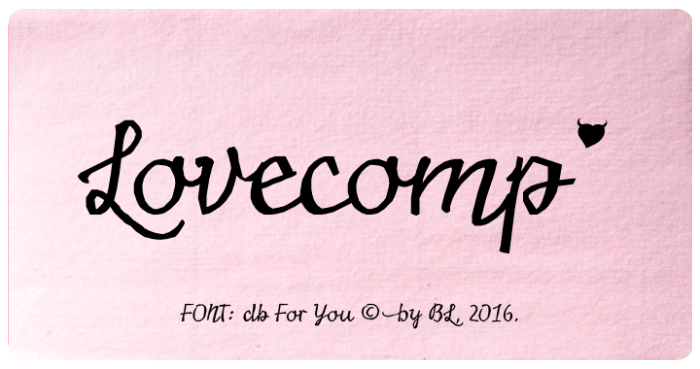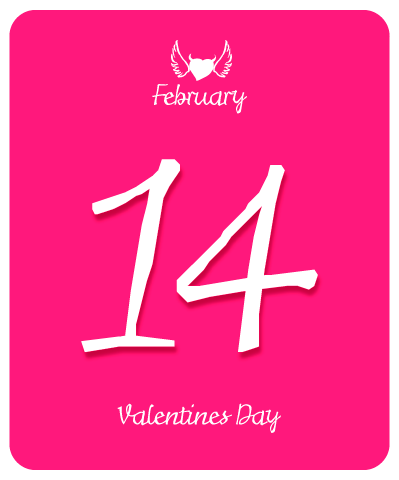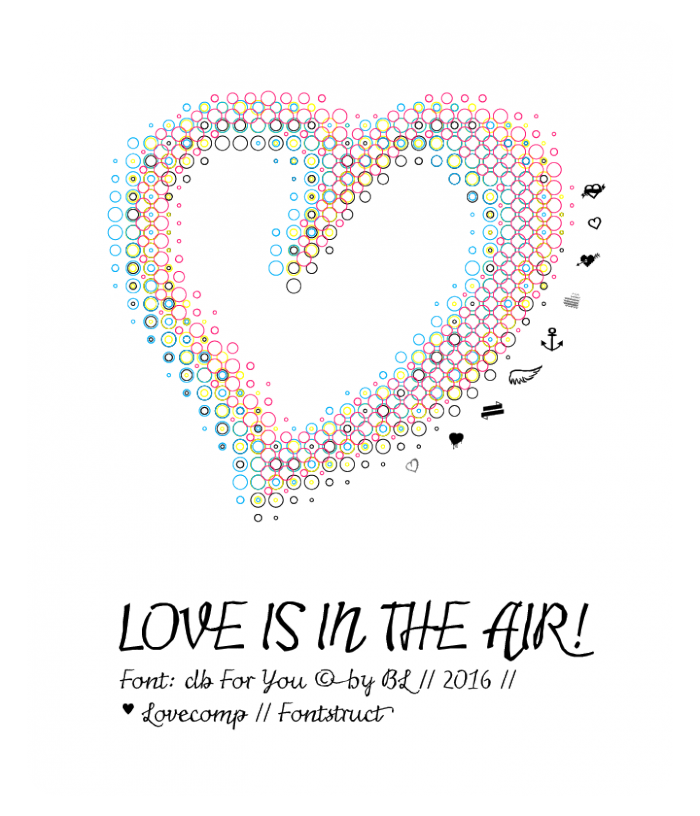
Well, there go all my chances.
10/10+fav
Lovely font. Instant winner.
Capital H, E and F seem a little on the thin side
Lovely script font with interesting dingbats. Without doubt, a strong font hence a strong entry ). Still early to congratulate with a win, but it's a winner as a script font done in fontstruct, really shows off fontstruct's versatile potential.
What a nice jotty script. I concur with the others, and kiss my winning chances goodbye.
The only slight problem from my (a Dane's) perspective is the A's resemlance with Æ. Of course, when you see them side by side, it is no problem to distinguish them, but the A alone could be mistaken for an Æ.
Also, why is the swashy L an alternate? I think it could work fine as the default.
10/10 for this masterpiece :)
A nice script (my chances just rocketed underground) I love the dingbats! :)
Wow! This has everything ... great script design plus all the romantic 'bells and whistles'.
Very attractive stylish font, very professional as all your designs. Nice for the Lovecomp as well as any script comp, calligraphy comp, slantings comp, elegant comp, ...
Seriusly . . . this is fantastic.
this is , of course, superior! i'm not sure about 3, but i looove the ligatures, the wings, just superb
I've been looking at this for the last couple of weeks. What a playful and beautifully handcrafted script. The detail in it is excellent, the samples are wonderful and the set of accompanying dingbats is superb.
Congratulations, dear Beate! You always was the winner in my heart, you know!
Congratulations, this is a high quality script with wonderful hand drawn touches.
I had thought that db Slow was the most beautiful script font ever created on FontStruct, and that it would be impossible to do better. But of course, you've proved me wrong. Every stem, every stroke, every swash seems perfectly in its place. And the set of dingbats is absolutely lovely. I think this is my favorite font of all time. Congratulations on the win!
P.S. Your "ñ" is not yet complete :)
It is such a pleasure to look at your fonts.